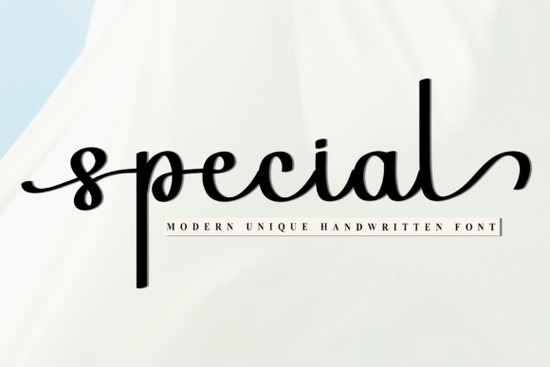
If you're looking for a festive typeface that brings holiday cheer to your projects, Special Font is a great choice. This decorative script font captures the joyful spirit of the season with whimsical details and elegant flair. Whether you're designing greeting cards, gift tags, or seasonal banners, it adds warmth and personality to your work.
What Makes Special Font Stand Out?
Designed with the holidays in mind, Special combines playful curves with ornamental touches that feel both nostalgic and fresh. The font includes a range of decorative elements like tiny stars, snowflakes, and festive swirls that enhance its celebratory vibe. These features aren’t just visual; they help convey emotion and mood in your designs, making them more engaging.
Perfect for Holiday Projects
Think about the kinds of things you create during the winter months: handmade cards, party invitations, wrapping paper designs, or even social media graphics for seasonal promotions. Special Font works well across all these formats. Its bold yet delicate style fits beautifully on both digital and print materials.
- Greeting cards: Use it for heartfelt messages that feel personal and warm.
- Gift tags: Add a little sparkle to your presents with custom labels.
- Print-on-demand items: Ideal for mugs, tote bags, and ornaments with a holiday theme.
- Social media content: Create eye-catching posts for Instagram or Facebook events.
You don’t need to be a professional designer to make these ideas come to life. With intuitive tools like Canva or Adobe Express, pairing Special Font with simple backgrounds or seasonal illustrations creates polished results quickly.
How It Fits Into Your Creative Workflow
For crafters and small business owners, consistency matters. Using one strong holiday font across multiple products helps build brand identity. Special gives you that cohesive look while still allowing room for creativity. You can mix it with simpler fonts for balance like pairing it with a clean sans-serif for body text.
If you’ve already explored other fun script fonts, you might appreciate how Special stands out. Unlike some fonts that lean too heavily into cursive flow, this one keeps readability intact while adding charm. It’s not overly complex, which makes it easier to use in smaller sizes perfect for tiny tags or QR codes on packaging.
When choosing a font, remember that clarity and usability matter just as much as style. Special Font delivers both making it a reliable option for seasonal designs that feel thoughtful and well-crafted.